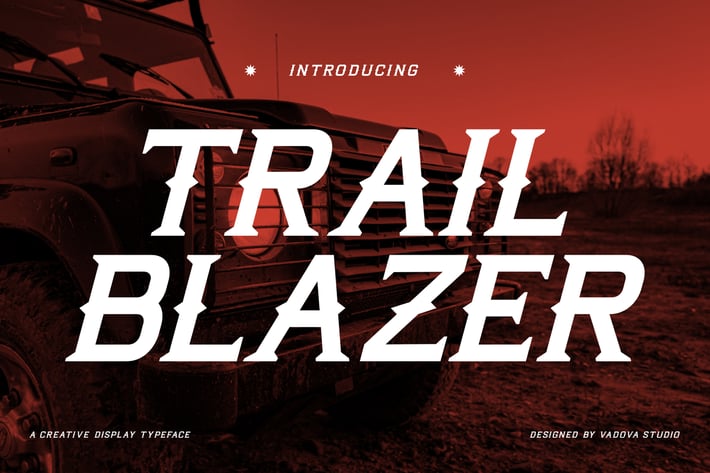
Trailblazer Creative Font
Trail Blazer is a bold display serif font with sharp edges and strong proportions inspired by automotive, outdoor, and adventure aesthetics. The letterforms feature sturdy shapes and confident strokes that deliver a powerful and masculine visual tone. Its condensed structure and striking details make the font highly visible in large-scale typography. Trail Blazer is designed to bring strength, motion, and impact to modern display compositions.
Trail Blazer is perfect for automotive branding, racing visuals, outdoor and adventure projects, off-road themes, sport branding, apparel graphics, posters, headlines, logo design, signage, promotional materials, vintage-inspired layouts, and bold digital or print designs that require a strong and commanding typeface.